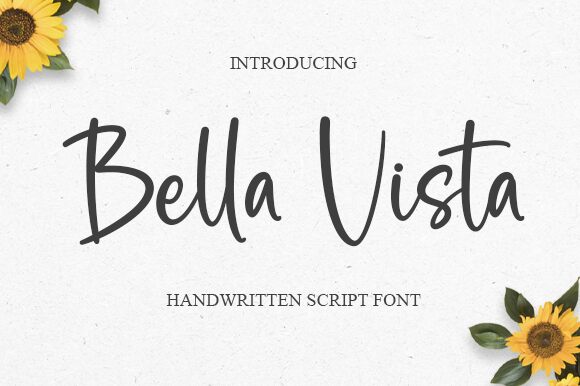
Bella Vista
Bella Vista, crafted by Graphix Line Studio, epitomizes elegance in the realm of handwritten typography. This semi-light script font dances with a delicate finesse, bringing to life the artistry of a personal touch. With its stylish alternates and ligatures, Bella Vista offers versatility and flair that effortlessly adapt to a myriad of creative endeavors.
Whether gracing wedding invitations with its sophistication or adding an authentic signature to branding materials, this font's unique characteristics ensure your projects will stand out with an air of bespoke charm. Ideal for designers who appreciate nuanced typefaces, Bella Vista promises to infuse your work with a sense of refined grace that is both timeless and contemporary.